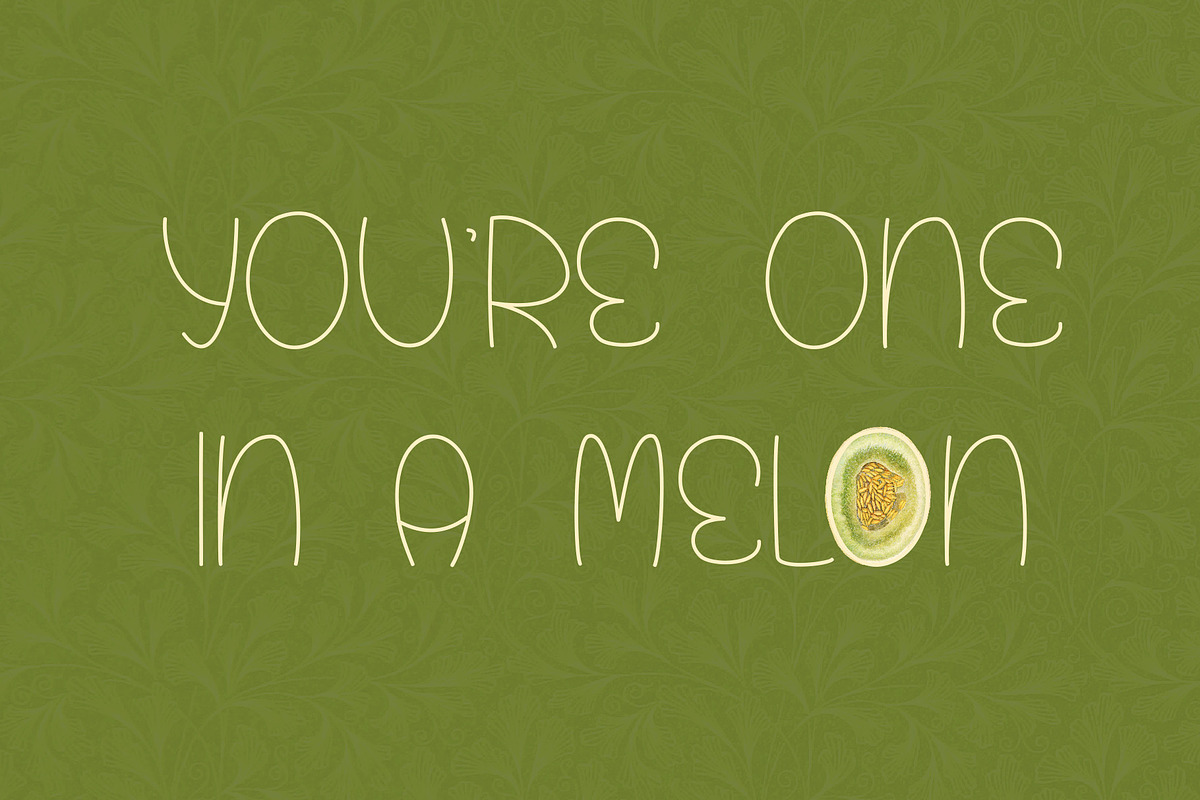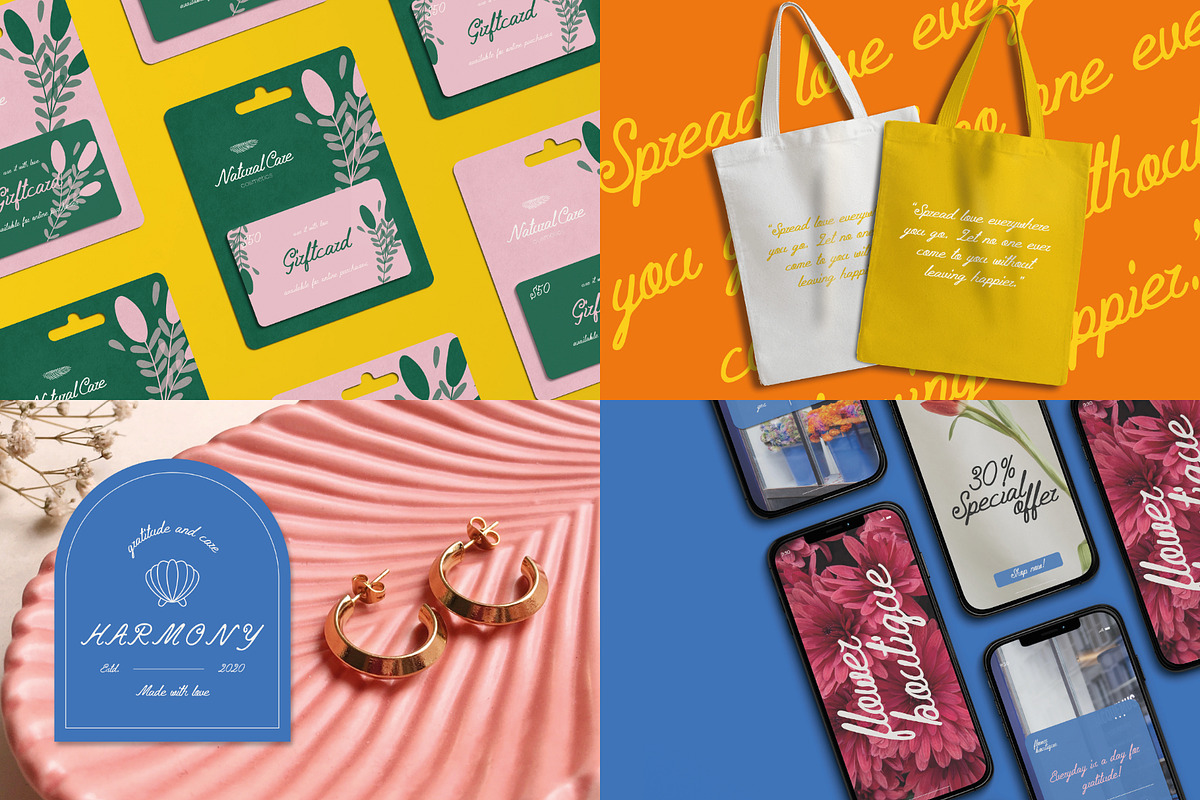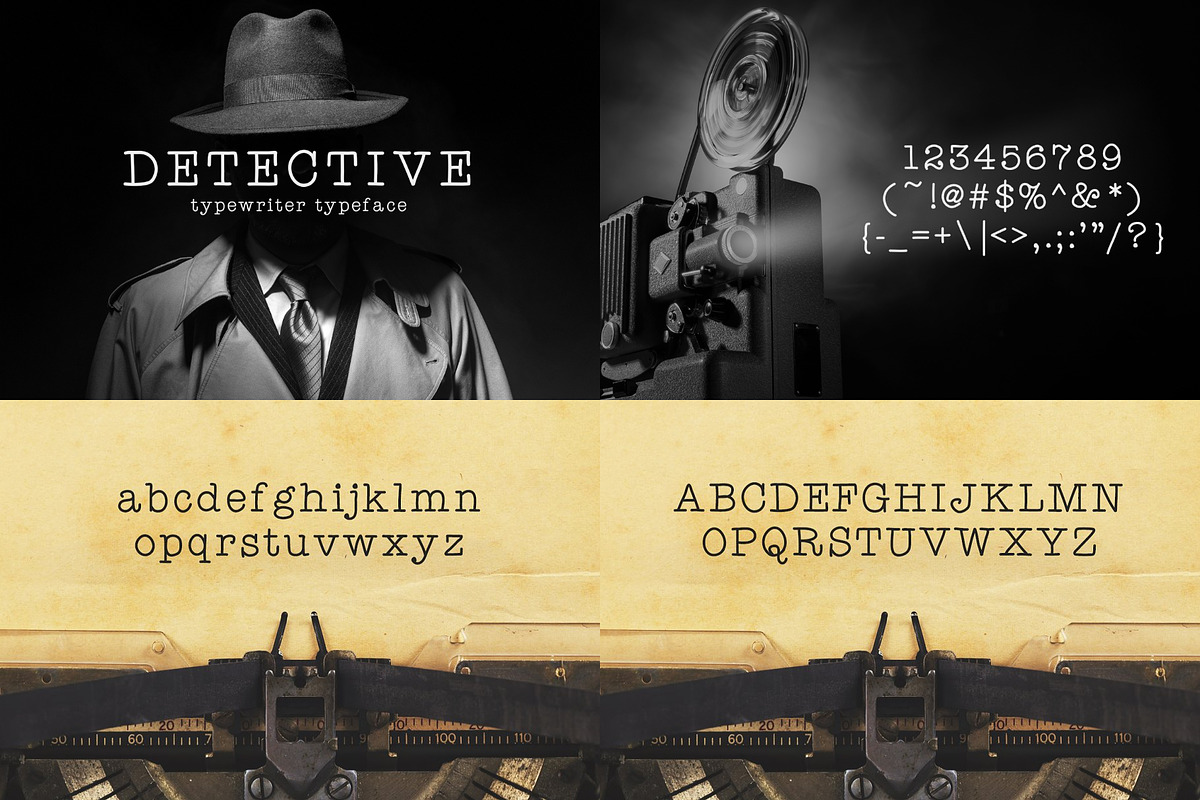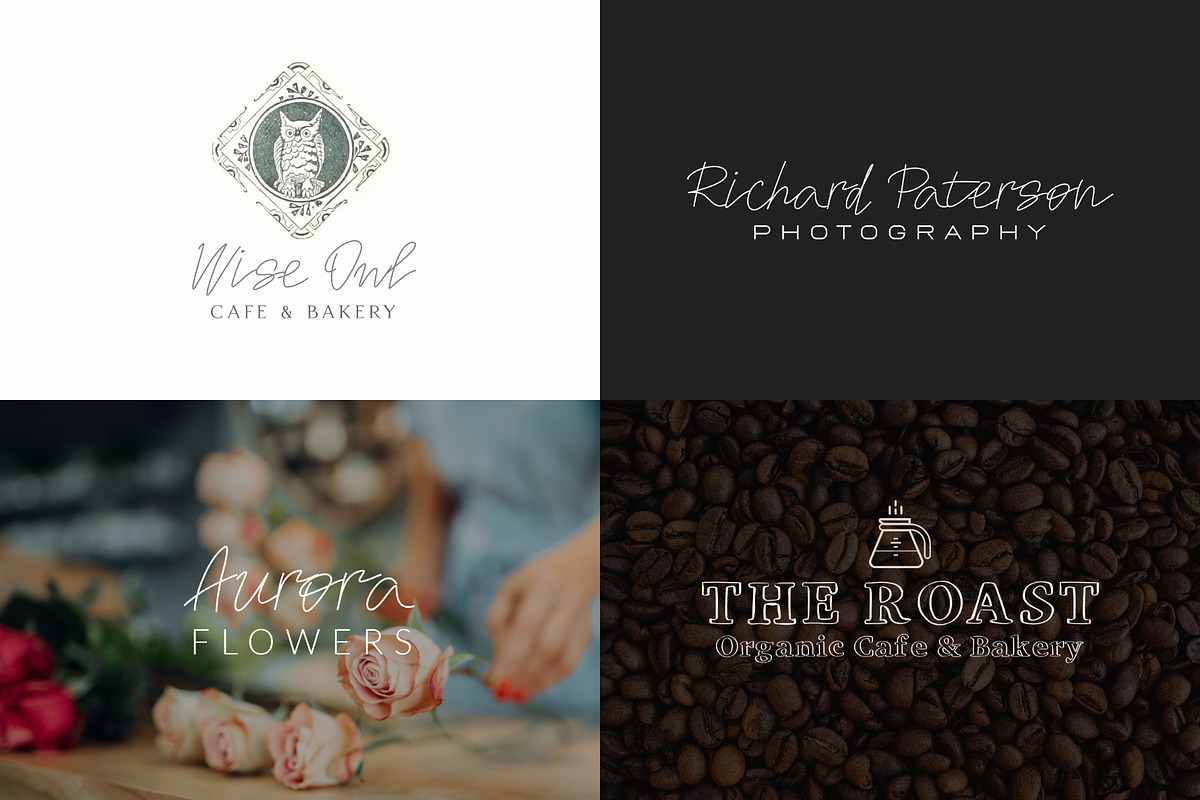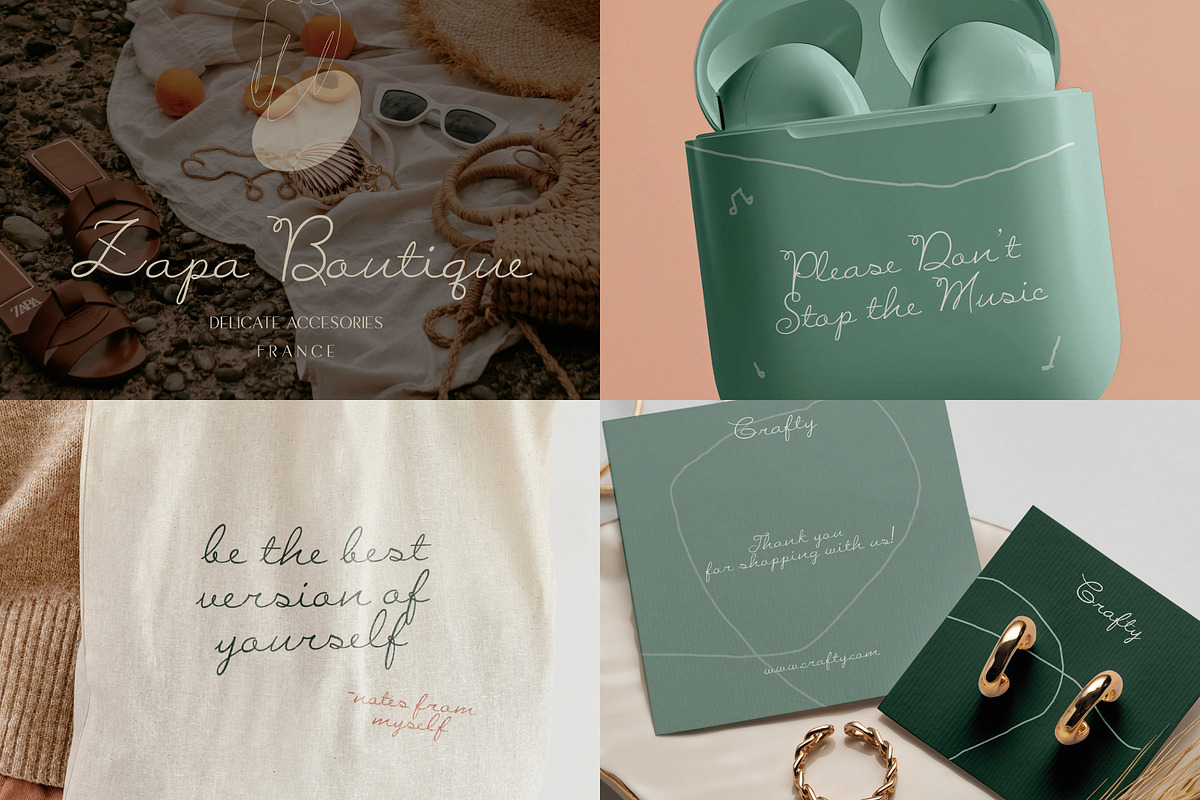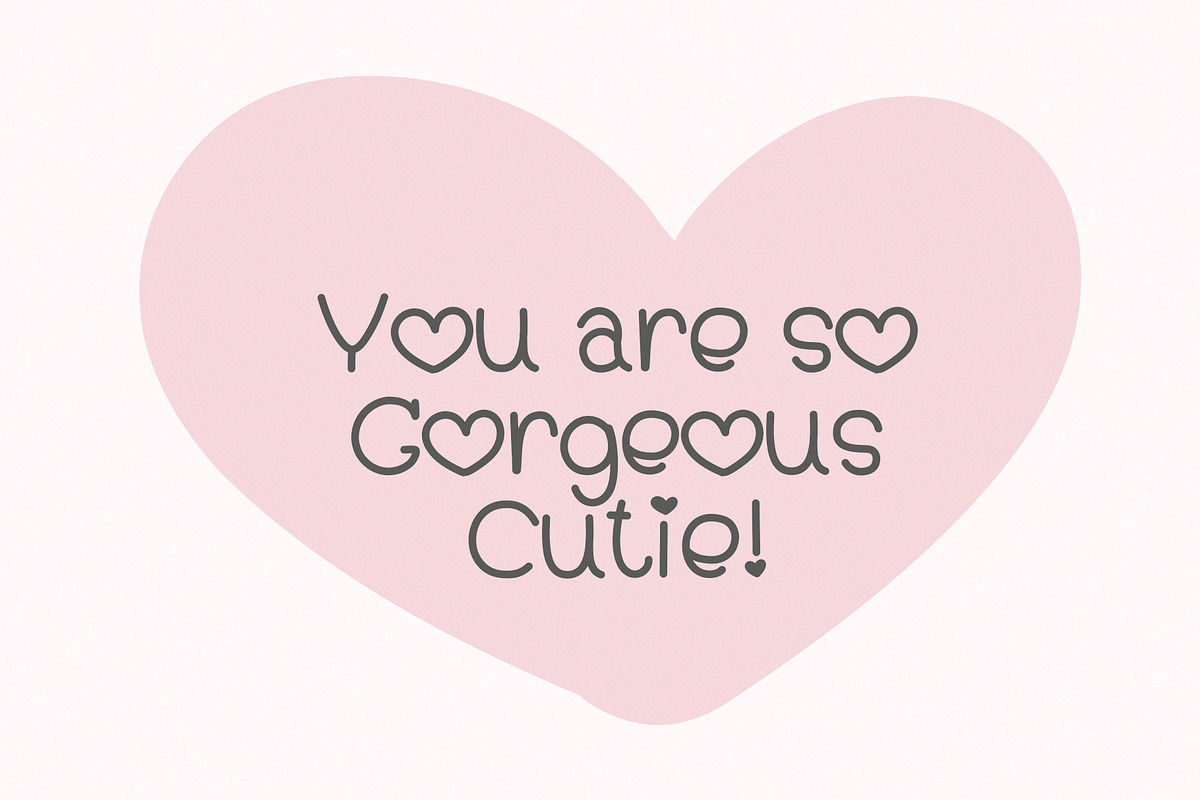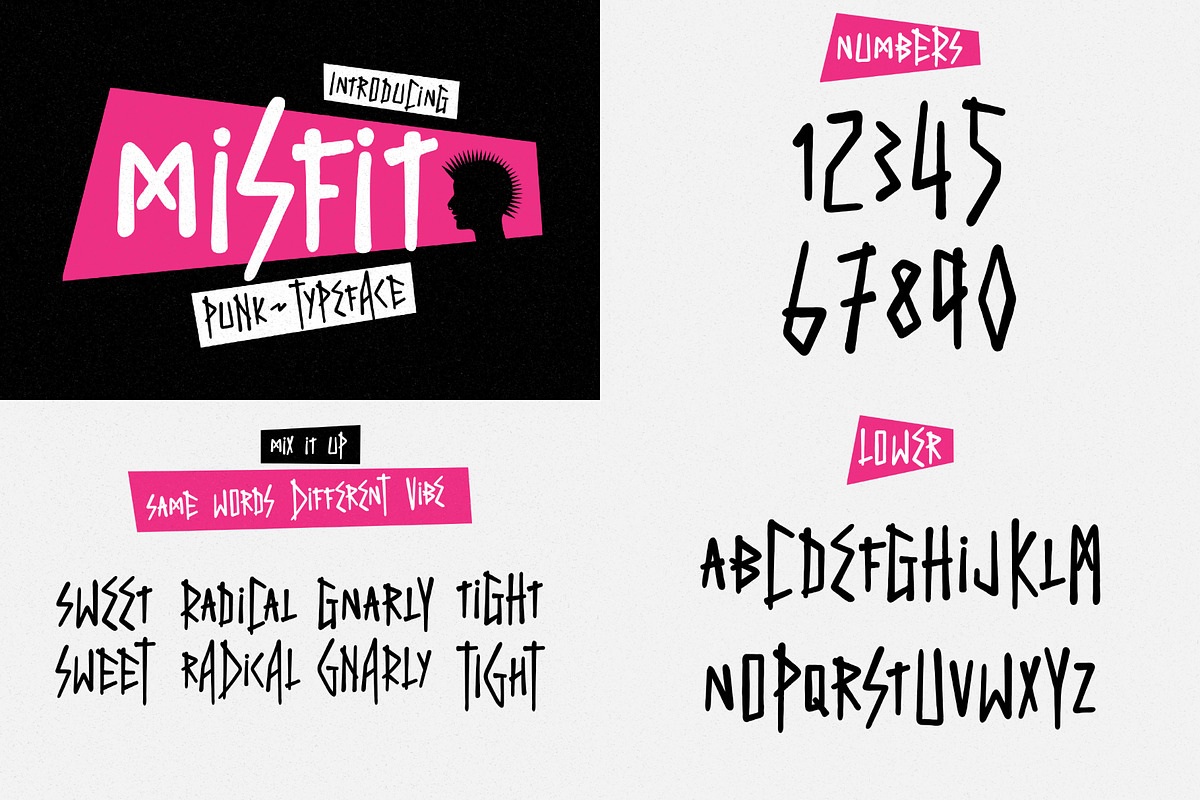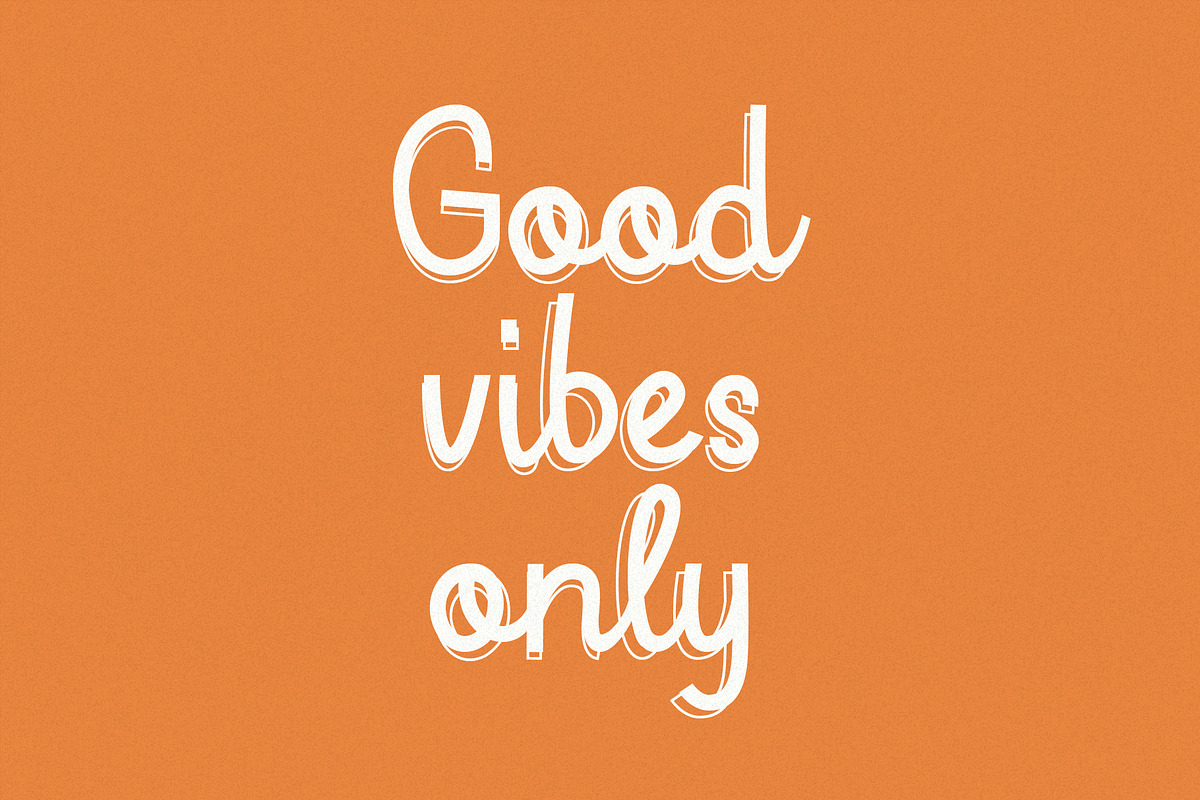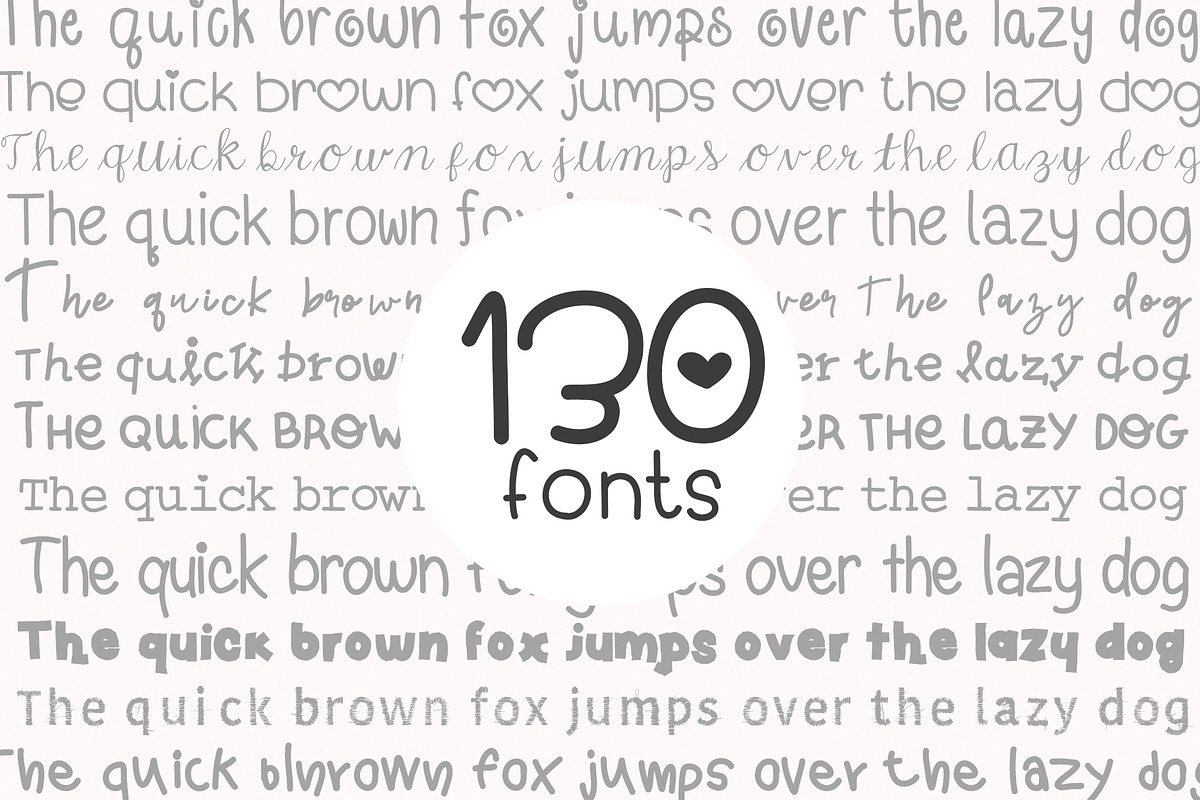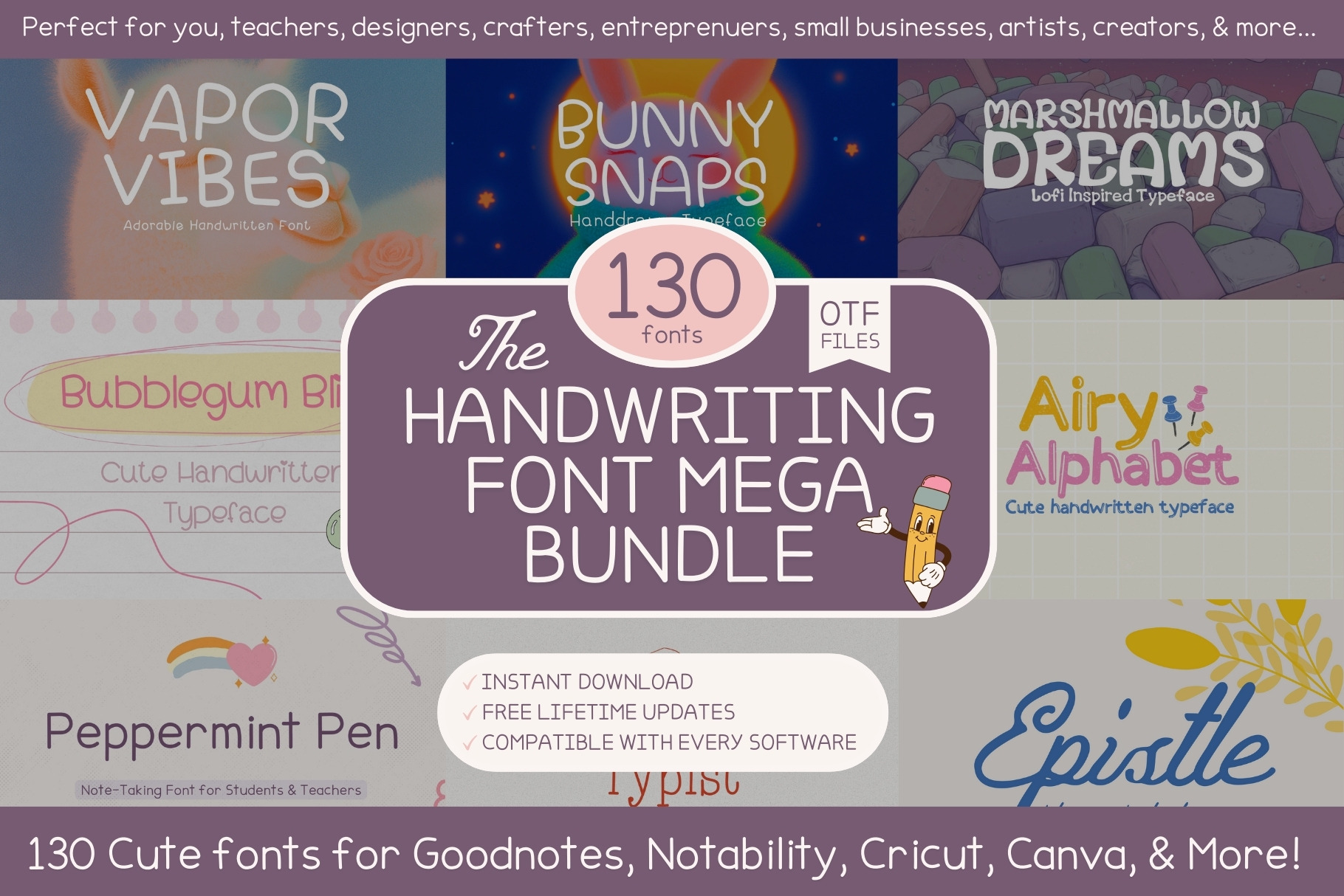
Handwriting Font Bundle (130 Fonts!)
Unleash your creativity with the Handwritten Font Bundle, a massive collection of 130 handcrafted OTF fonts designed to make every project stand out. From playful doodles to elegant scripts and bold statement typefaces, this bundle has the perfect font for planners, crafts, and professional designs.
- 130 Unique Handwritten Fonts – A versatile mix of playful, elegant, bold, and whimsical designs.
- Perfect for Any Project – Ideal for bullet journals, branding, invitations, logos, social media graphics, apparel, Cricut crafts, Procreate lettering, Canva templates, and more.
- Teacher & Planner Friendly – Add charm to worksheets, lesson plans, digital planners, and GoodNotes files.